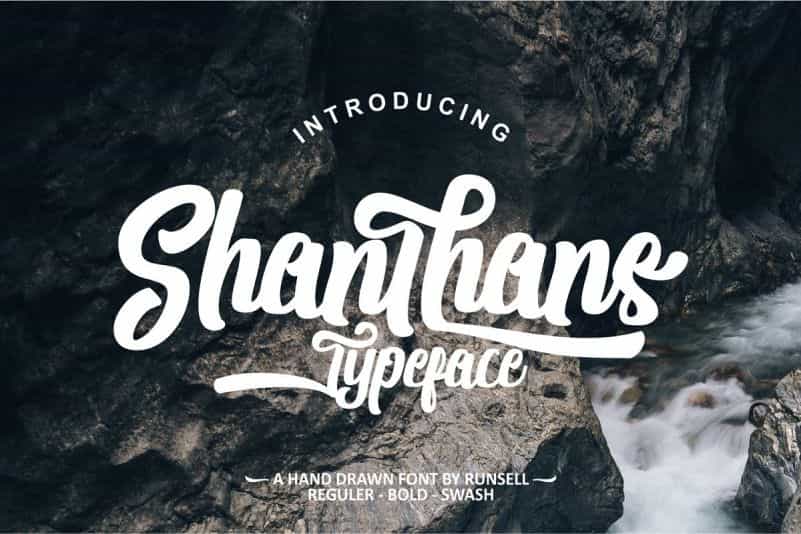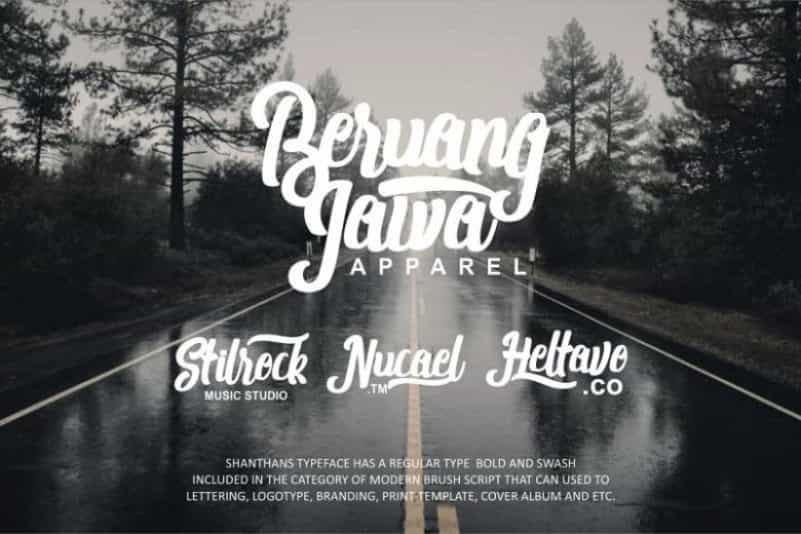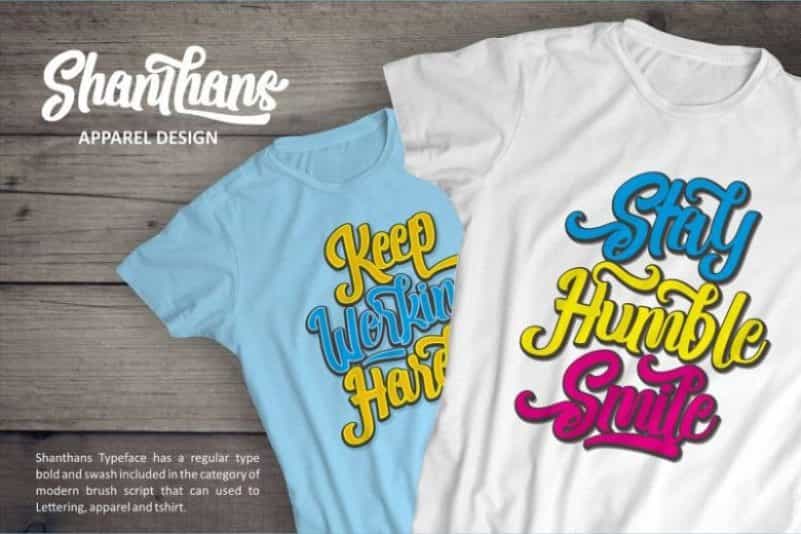
Discover Shanthans Script Font, part of the Brush Calligraphy collection—a versatile and unique font perfect for adding a personal touch to your projects. Download it for free and enjoy crafting designs with style, from invitations to social media posts. This font is available exclusively for personal use, giving you the freedom to create without limits. Unlock your creativity with Shanthans Script Font today!
Introducing Shanthans Font. It’s modern script. It is ideal for branding, t-shirt, logotype, mug, quotes, blog design, modern advertising design, invitation, Home decor, Book/Cover Title, special events, movie poster, Instagram display, album cover, any handmade vintage type needs etc.